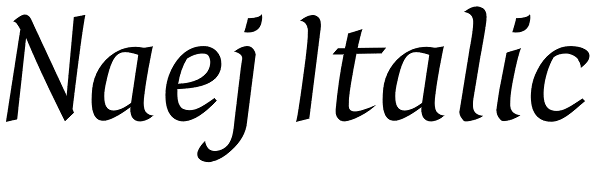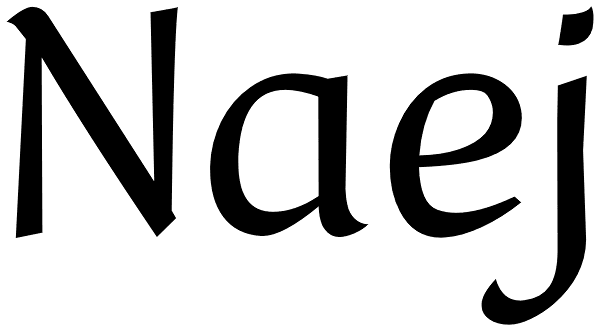
Naej
Naej is a font family for recreational children's storybooks. It is somewhat neohumanist in design, organic rather than mechanical. Calligraphic, with a humanist axis, Naej connotes the flavor of the Renaissance letters. Modulated stroke, modest...
Naej Italic